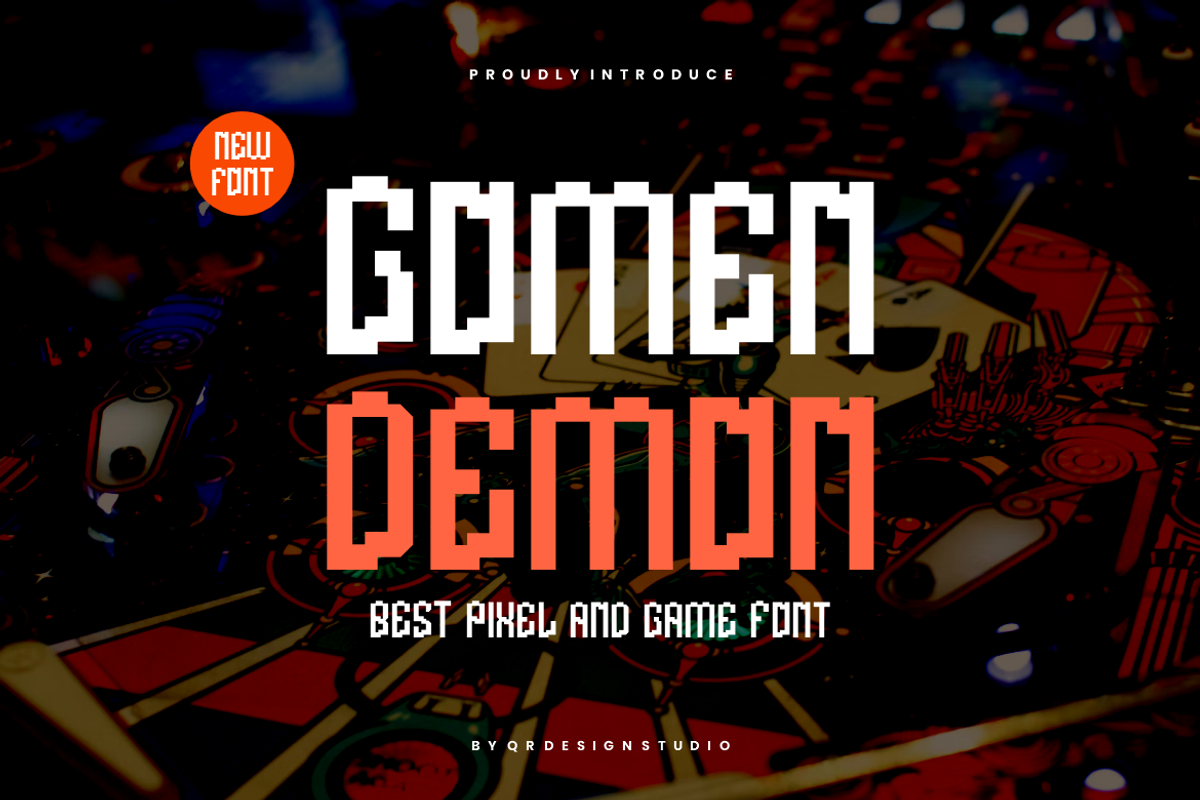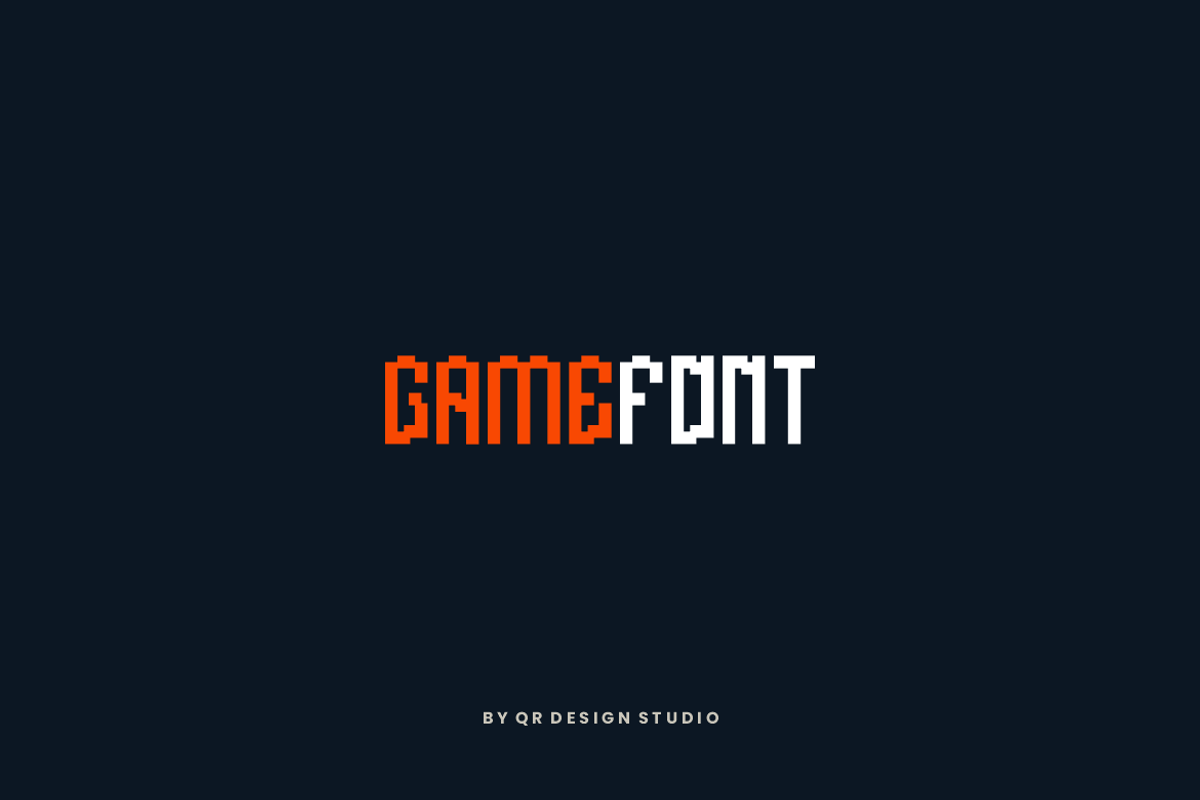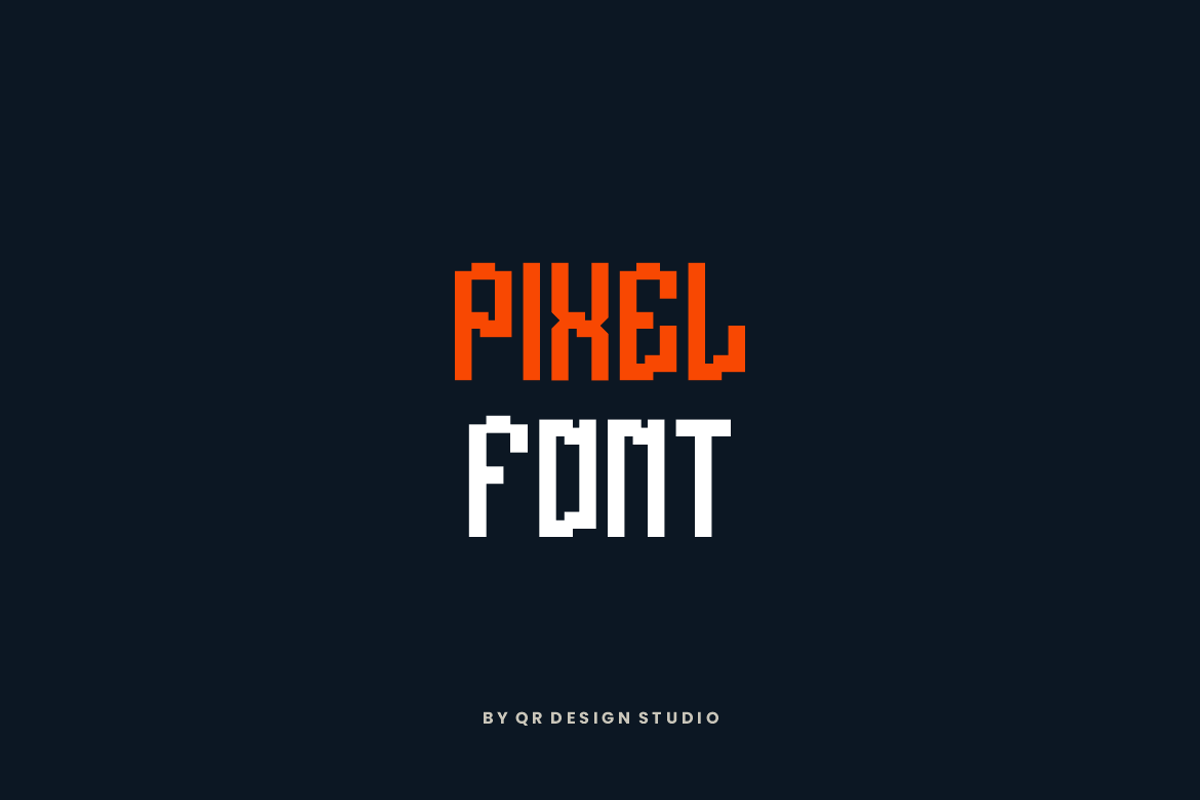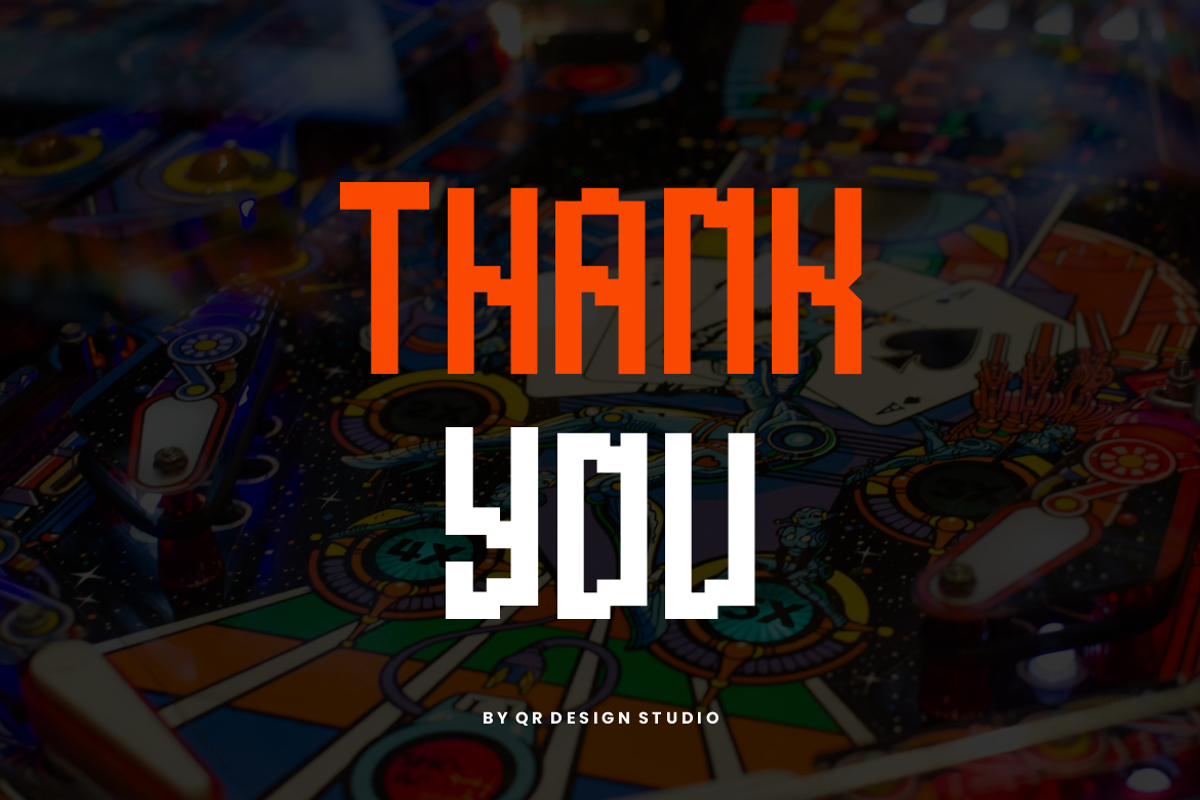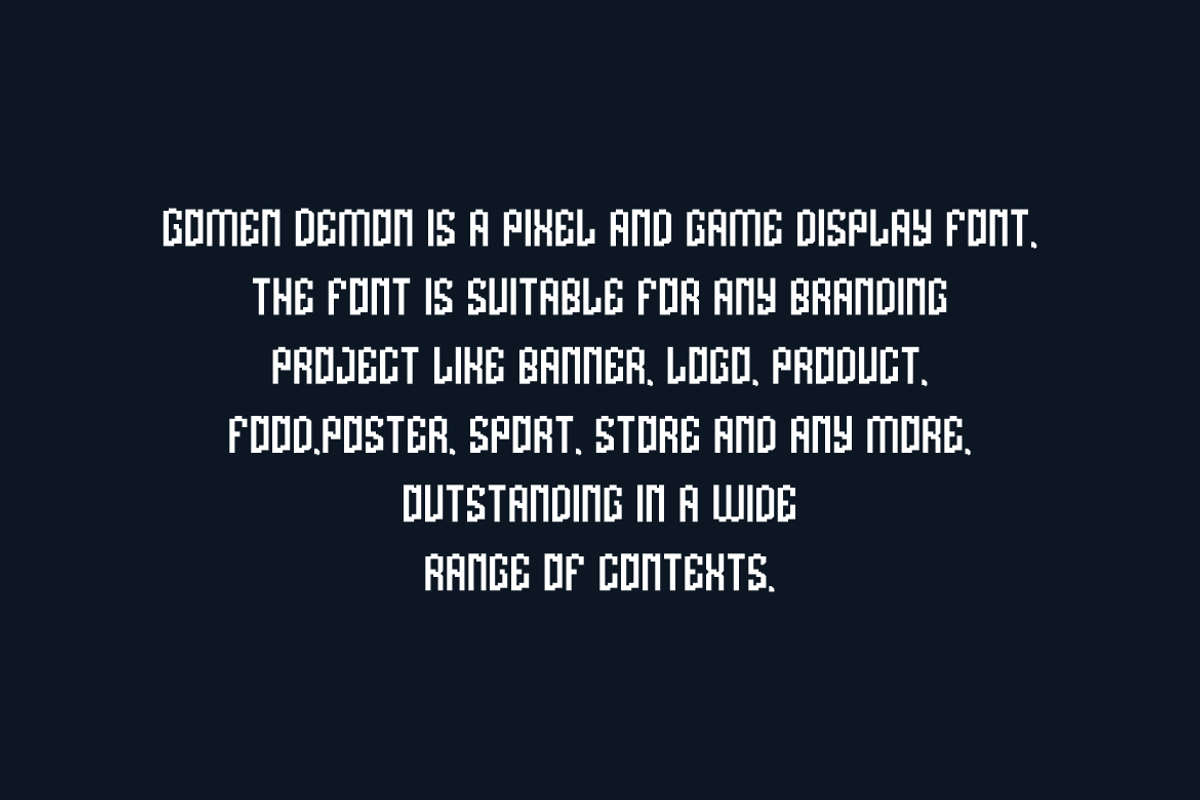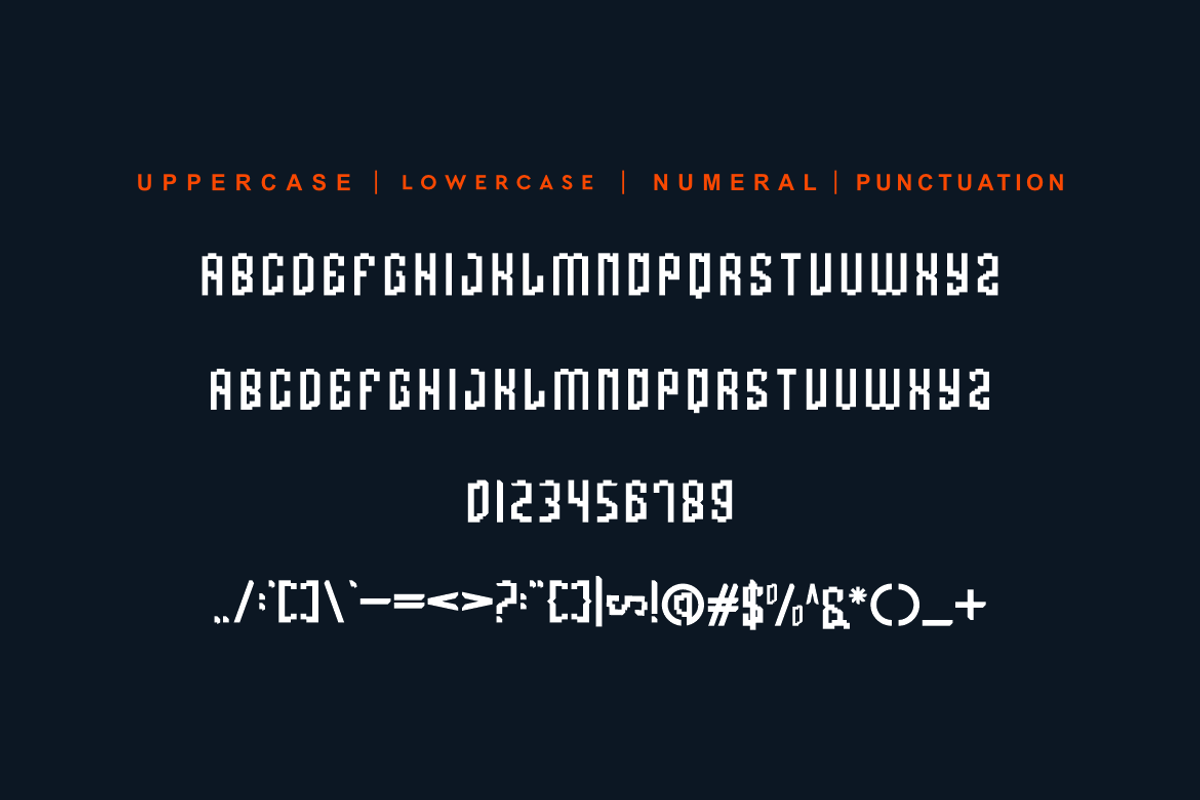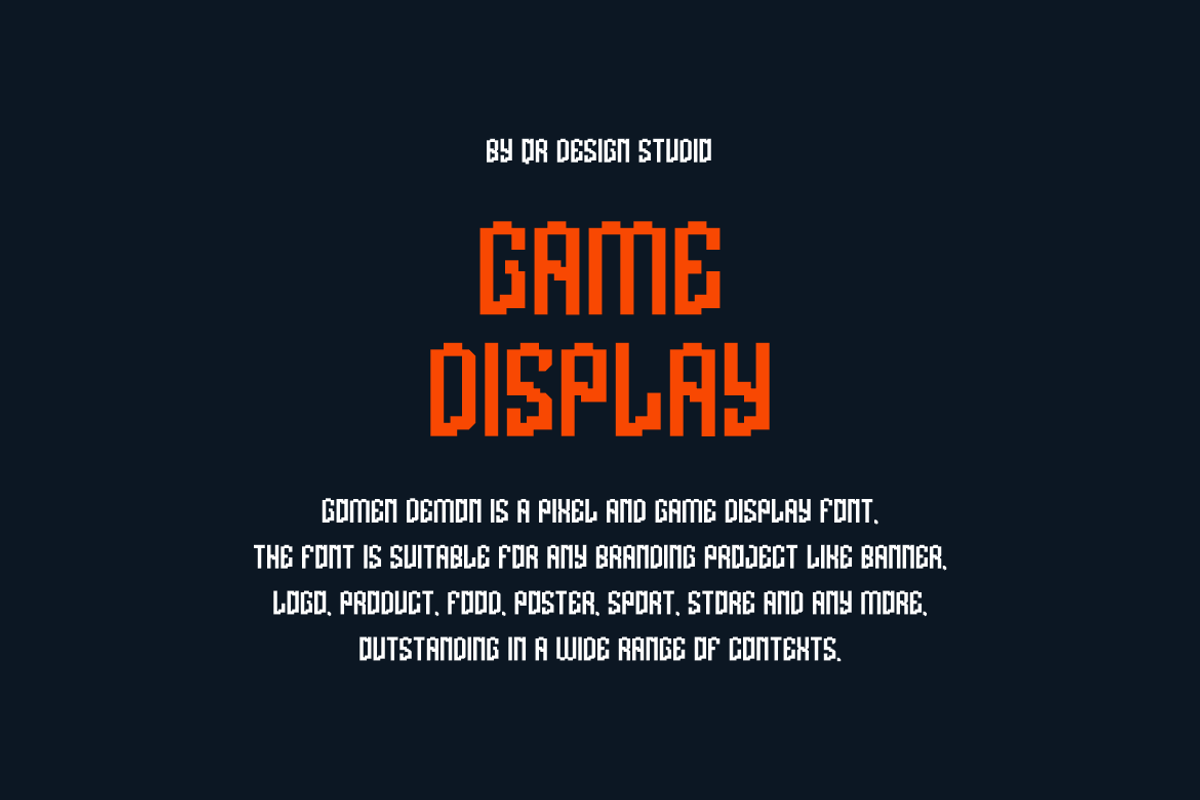
Gomen Demon - Game & Pixel Font
Gomen Demon Font is a pixel and authentic display font. The font is suitable for any branding project like poster, logo, sport, and many more. Outstanding in a wide range of contexts.